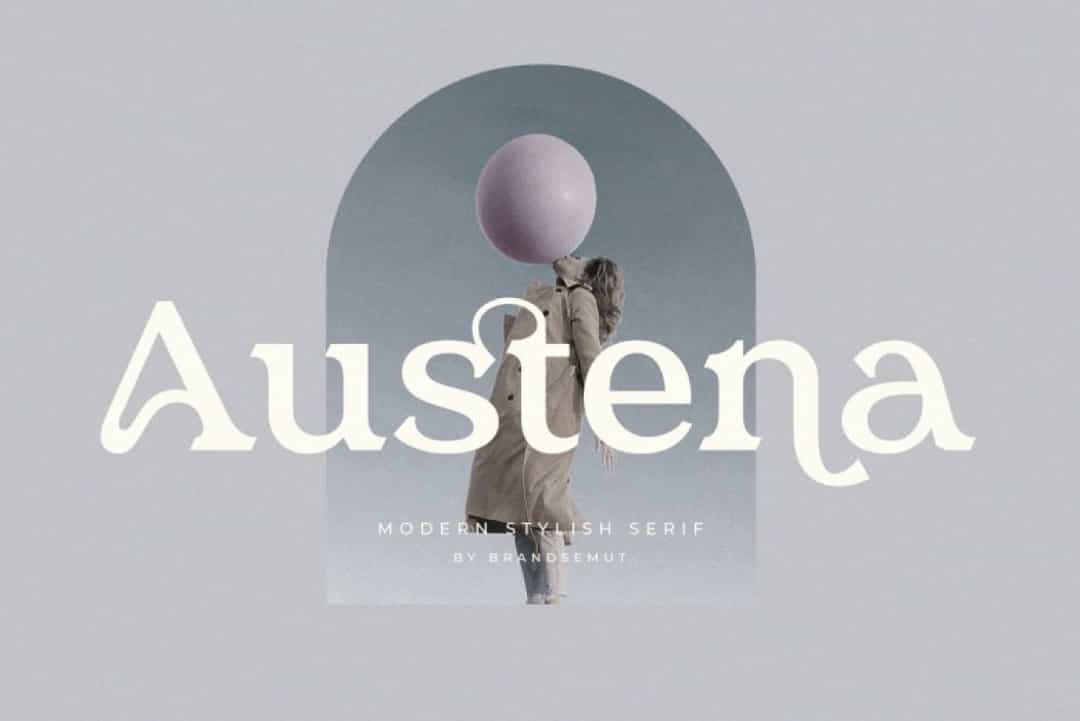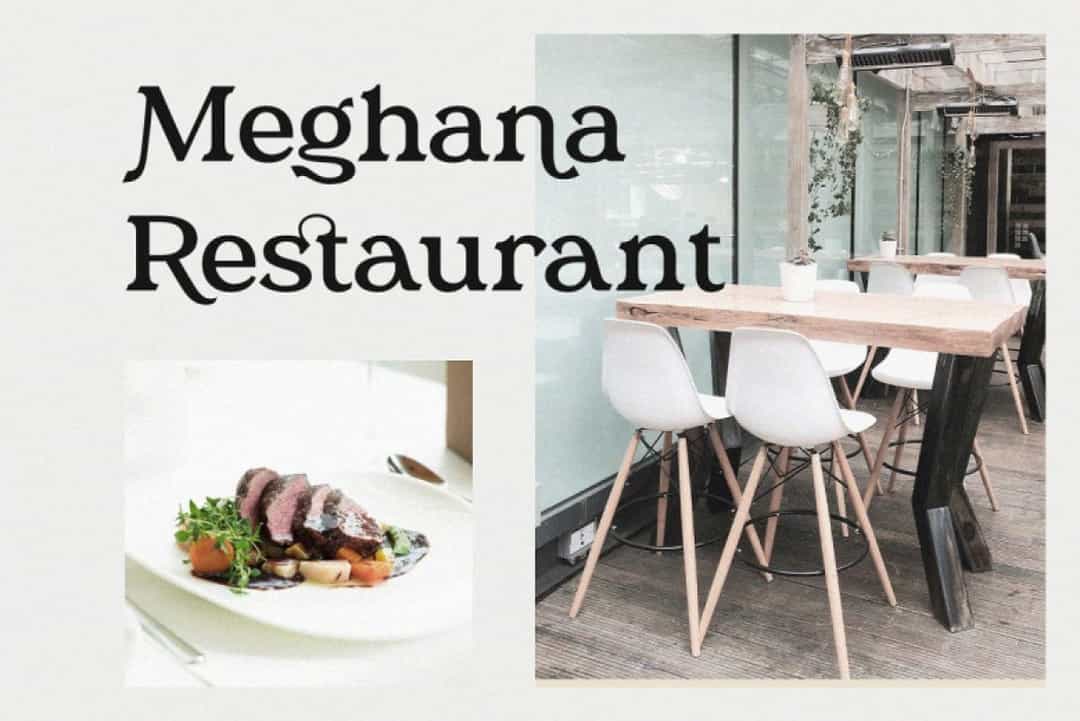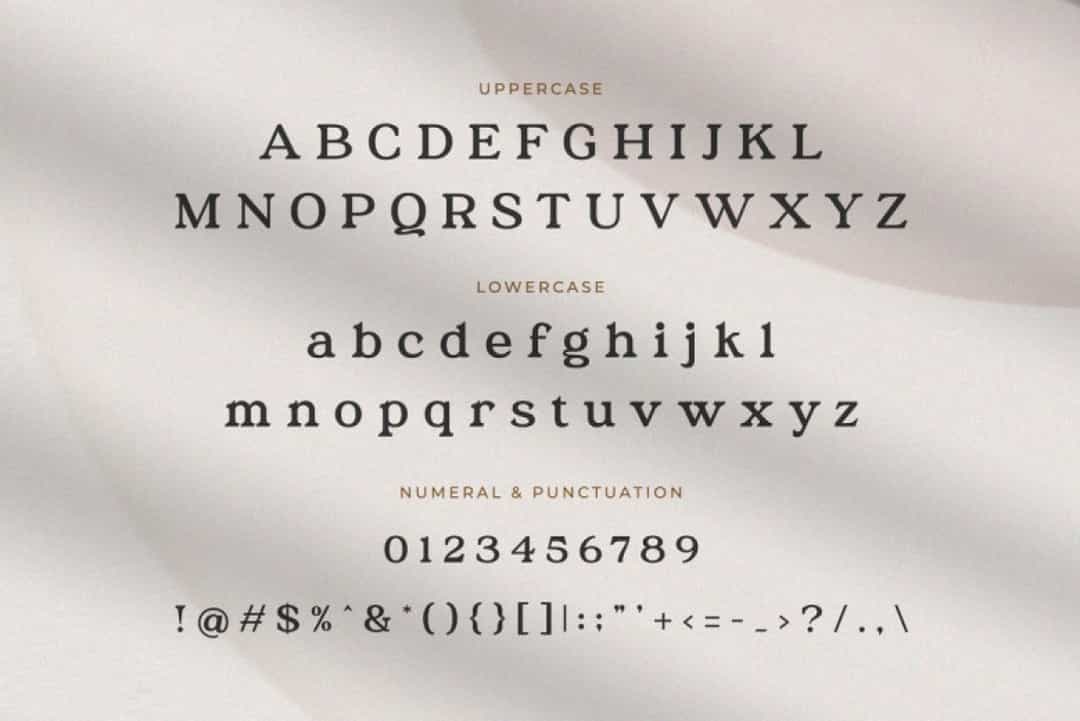
Austena Serif Font is an elegant, contemporary typeface designed to add an air of sophistication and modernity to any project. Ideal for headings, logos and magazines as well as branding packaging and invitations – Austena features sleek forms with precision curves to lend every project its signature elegance.